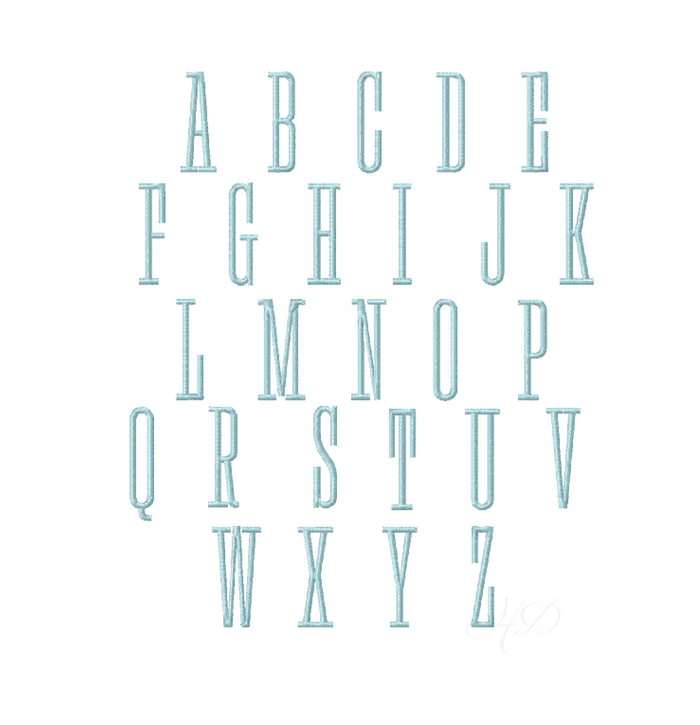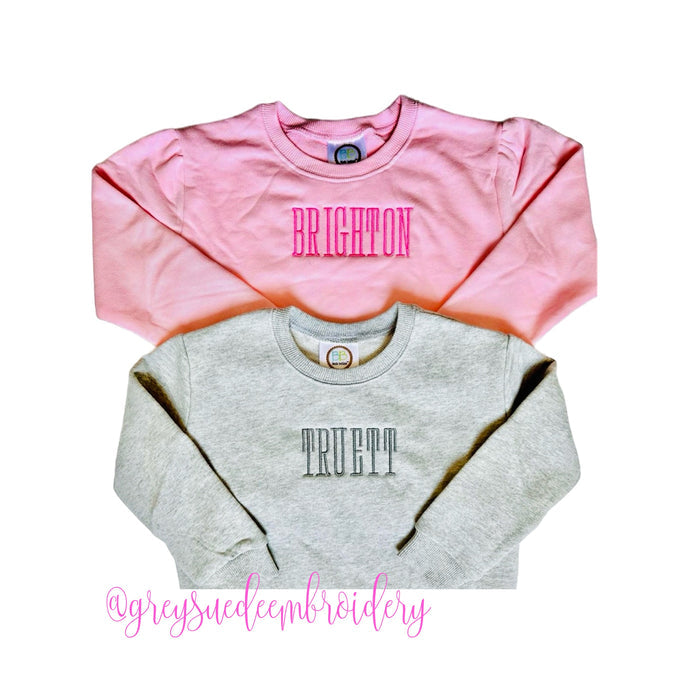
Ashton Satin Sports Embroidery Font
Transform your crafting experience with the Ashton Satin Sports Embroidery Font. This sporty satin stitch embroidery machine font is perfect for those looking to add a unique touch to their projects. With 1", 1.5", 2", 2.5", 3" and 3.5", each design fits comfortably in a 4x4 embroidery hoop or larger, making it versatile for all your monogramming needs.